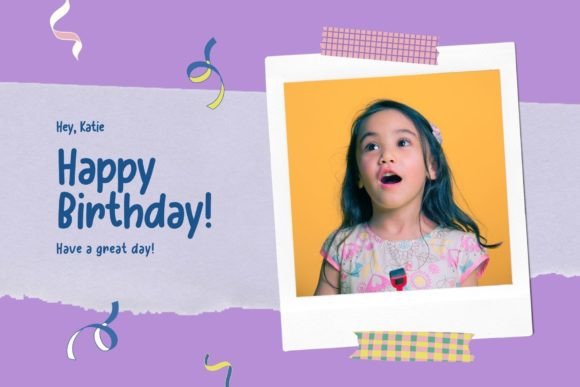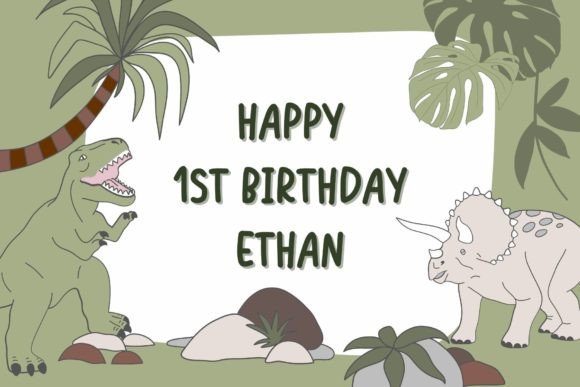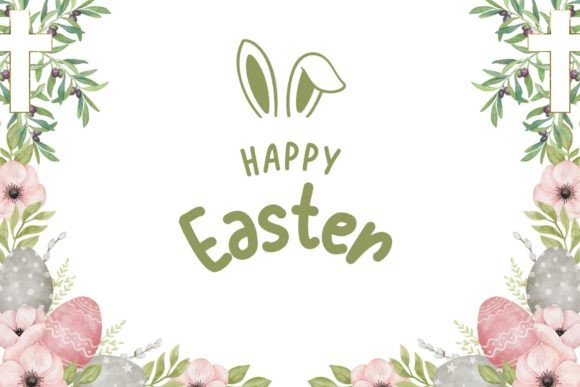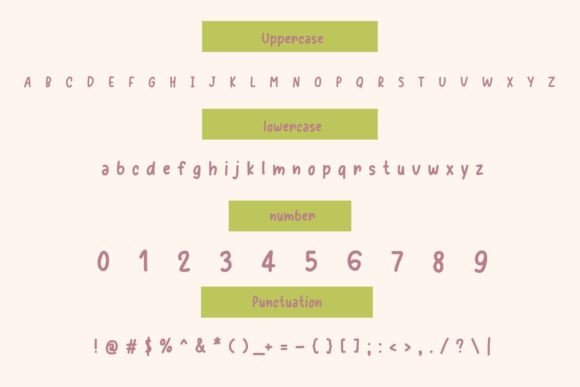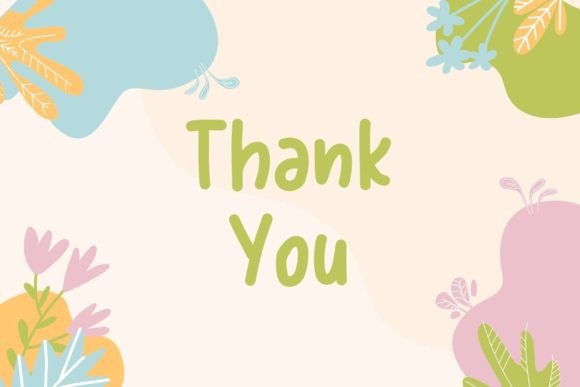
Introduction to Junery Font
Junery is a cute handwritten font.
It embodies playfulness and authenticity and is the perfect choice for all your favorite projects such as blog posts, logos, branding, ads, invitations, greeting cards, planners, photo albums, decorations, and much more Add it to any of your designs, and enjoy the results.
Why Choose Junery Font?